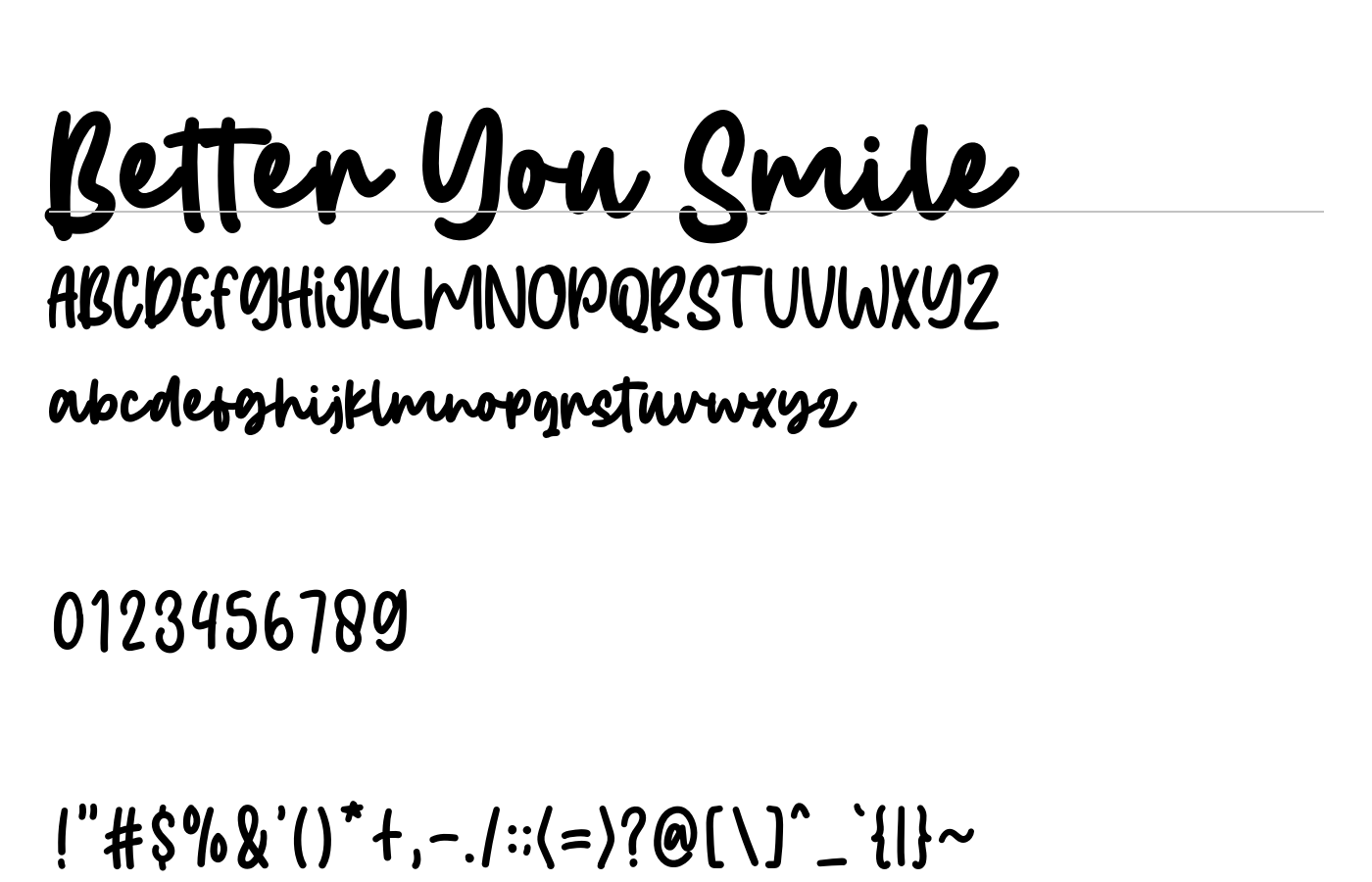
Better You Smile is a playful and casual handwritten font with a friendly, approachable feel. Its smooth, rounded strokes and slightly uneven letterforms give it an authentic, personal touch ideal for creative projects, informal branding, and fun headlines. This font works well for logos, packaging, and social media where a warm and inviting vibe is desired.
Better You Smile Font
About Better You Smile Font
| Font family | Better You Smile Font |
| Designer | Stefie Justprince |